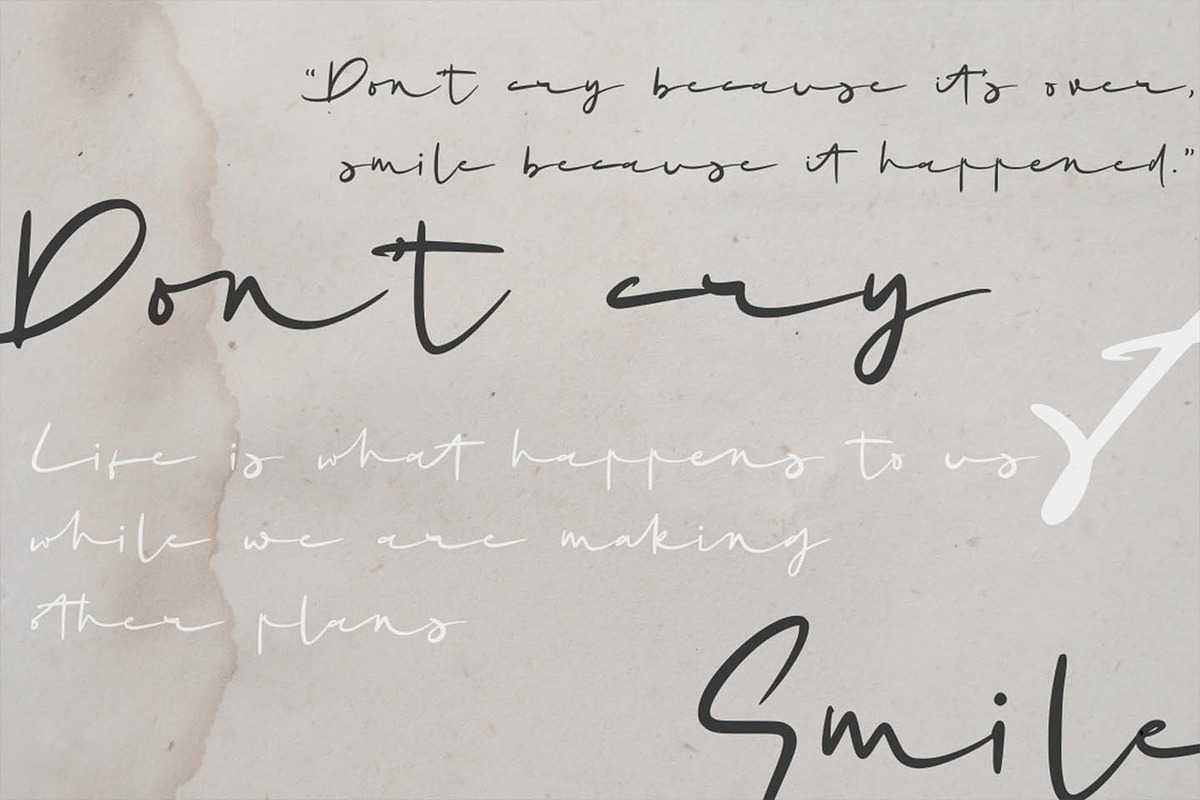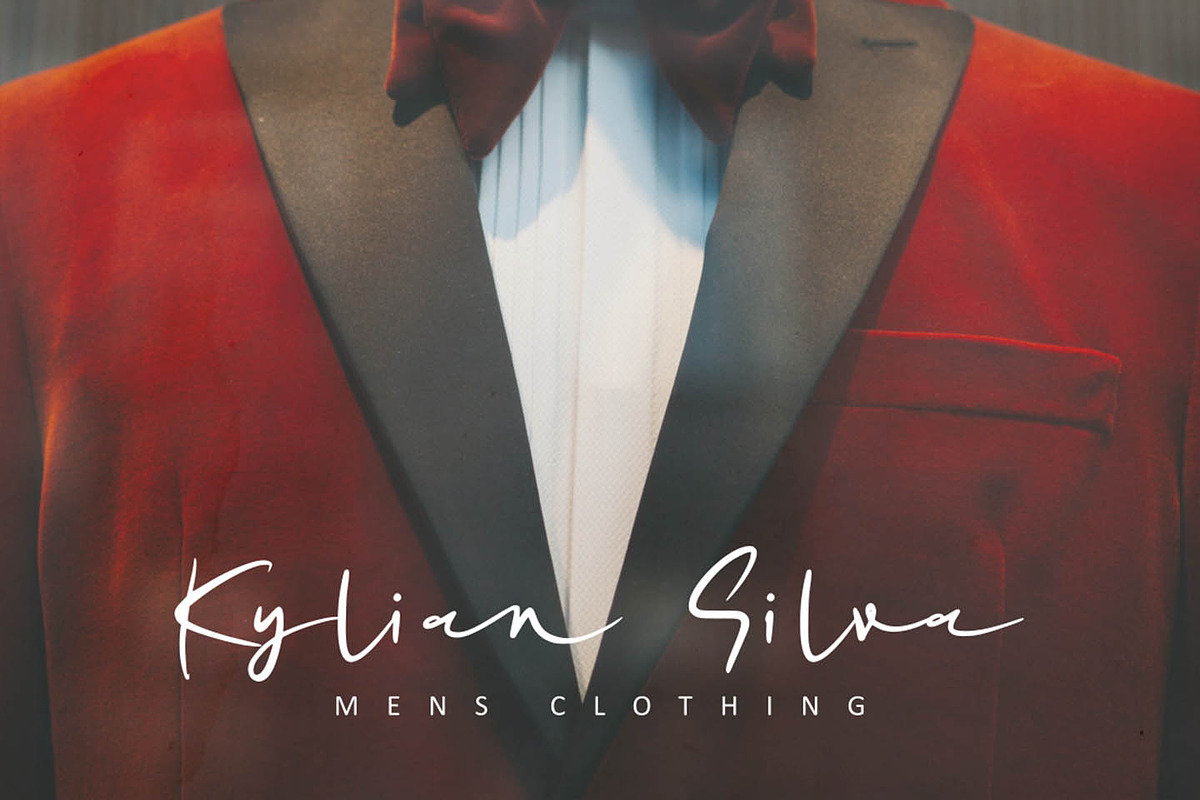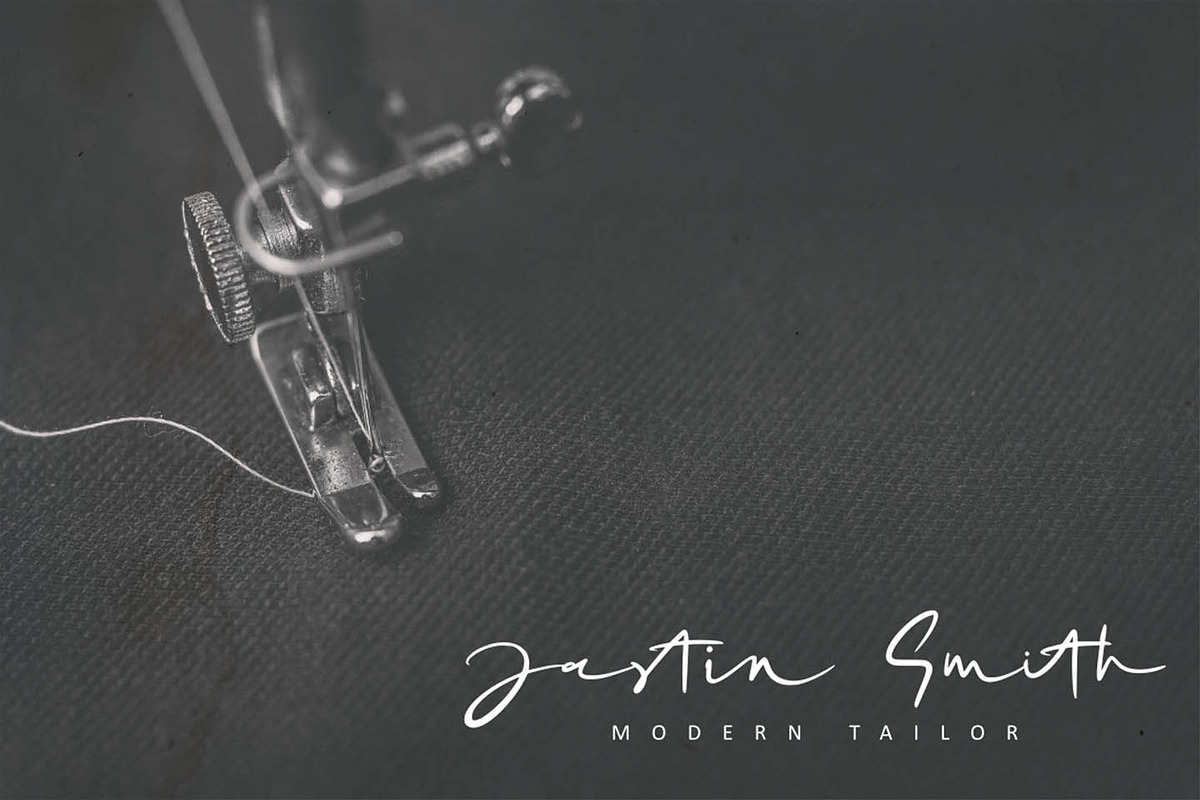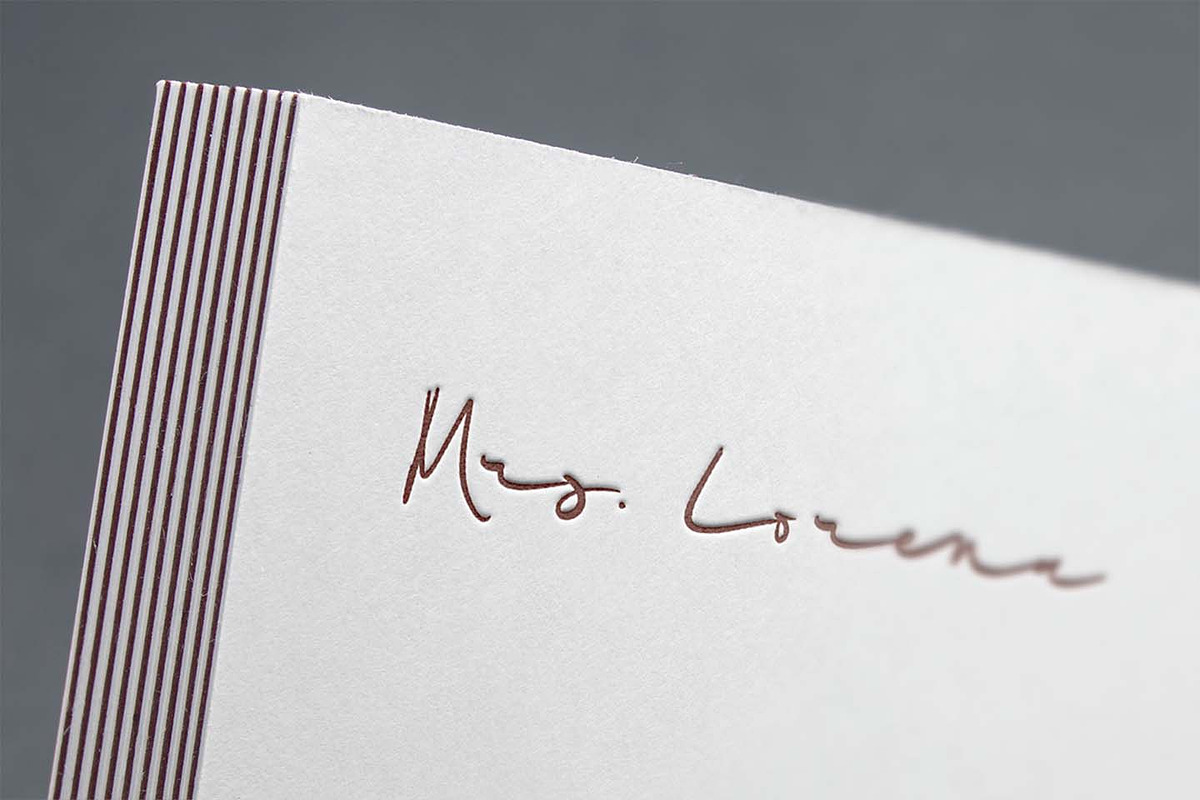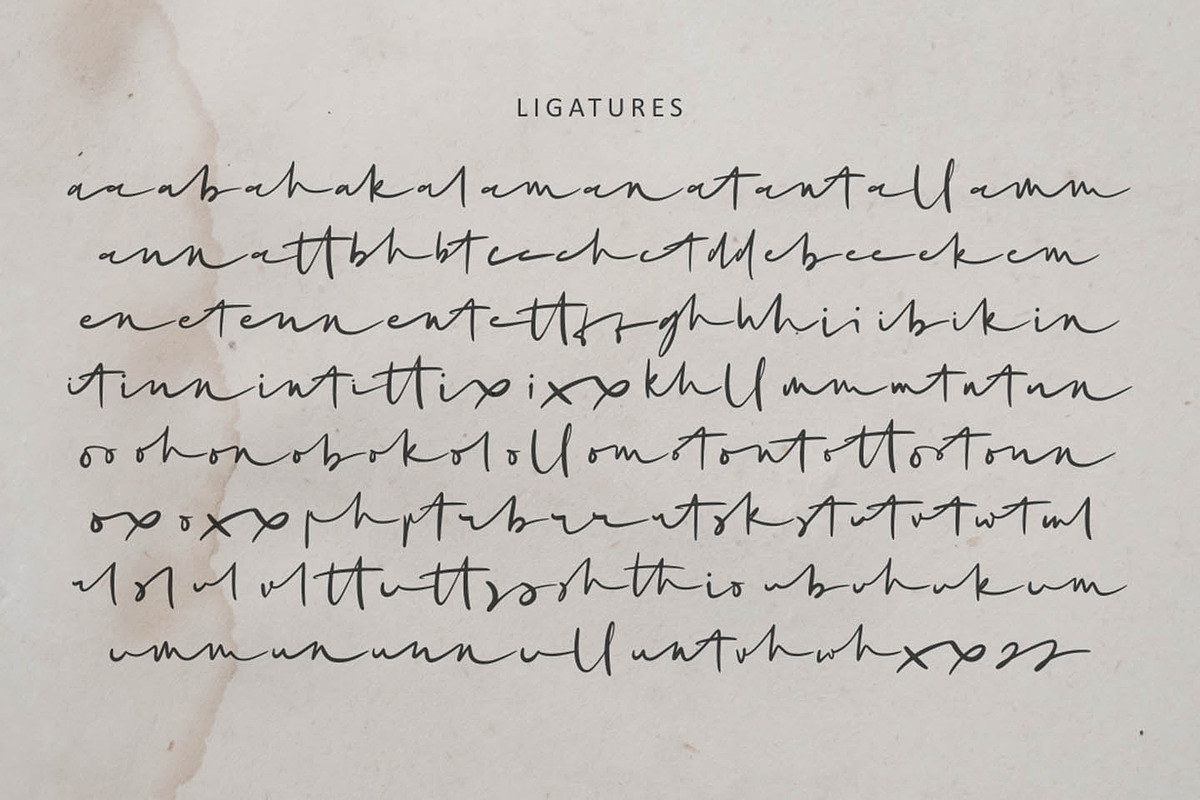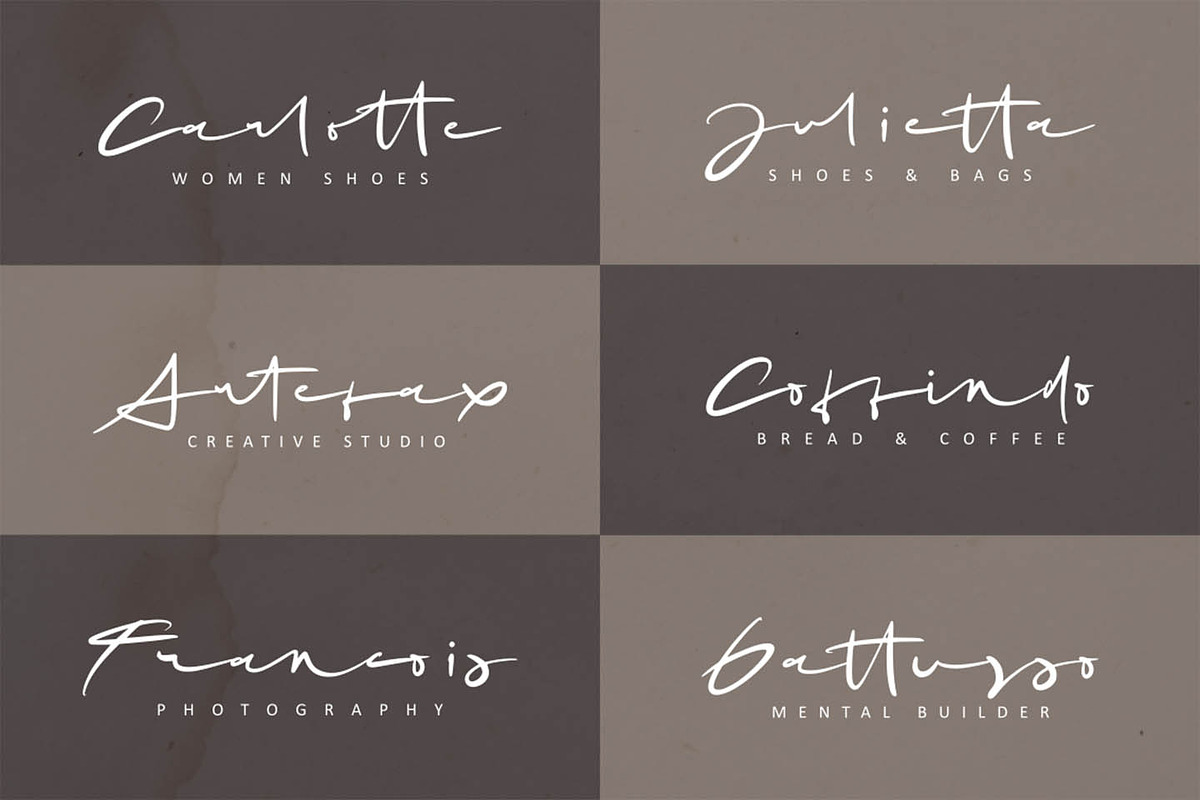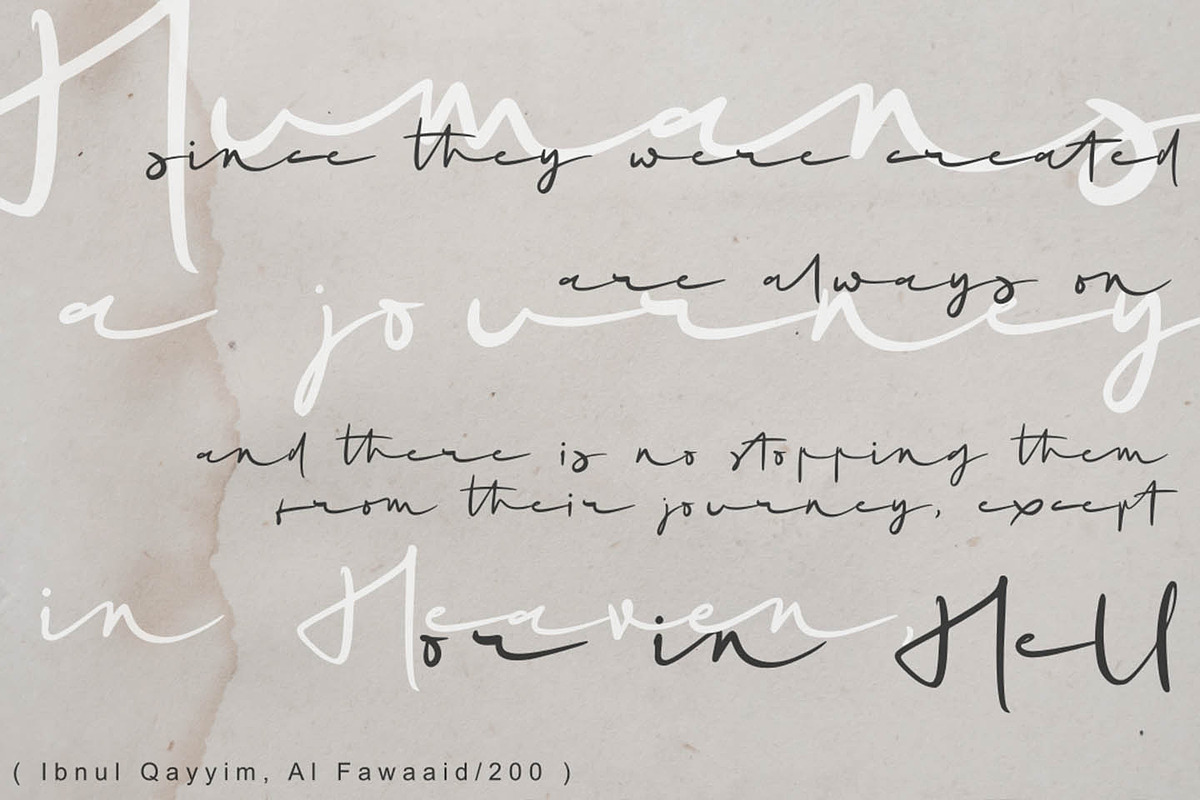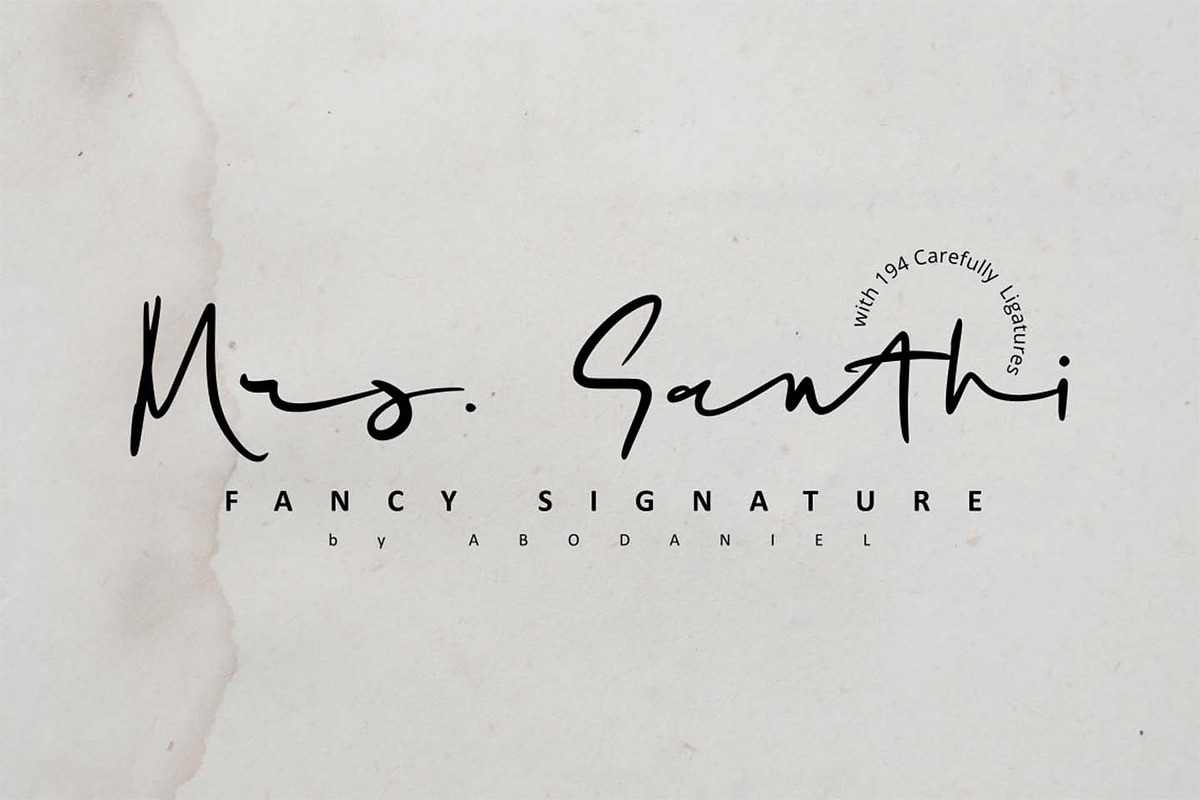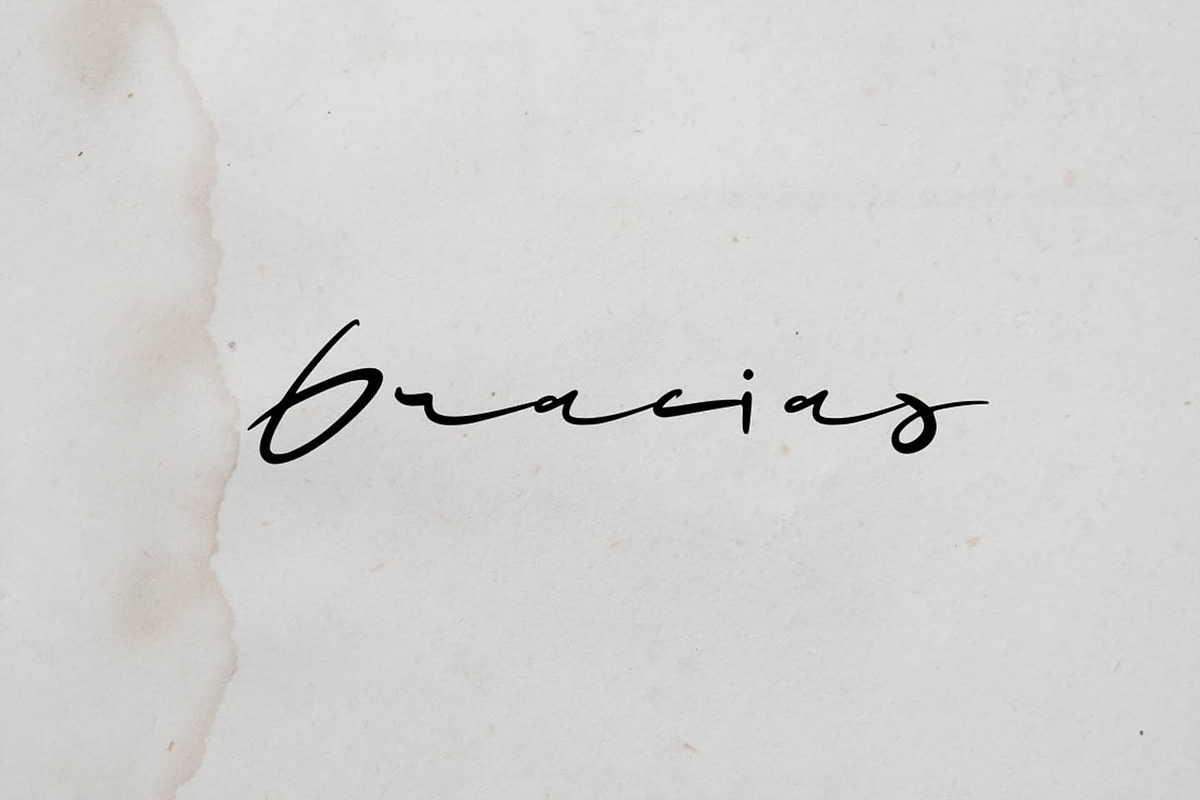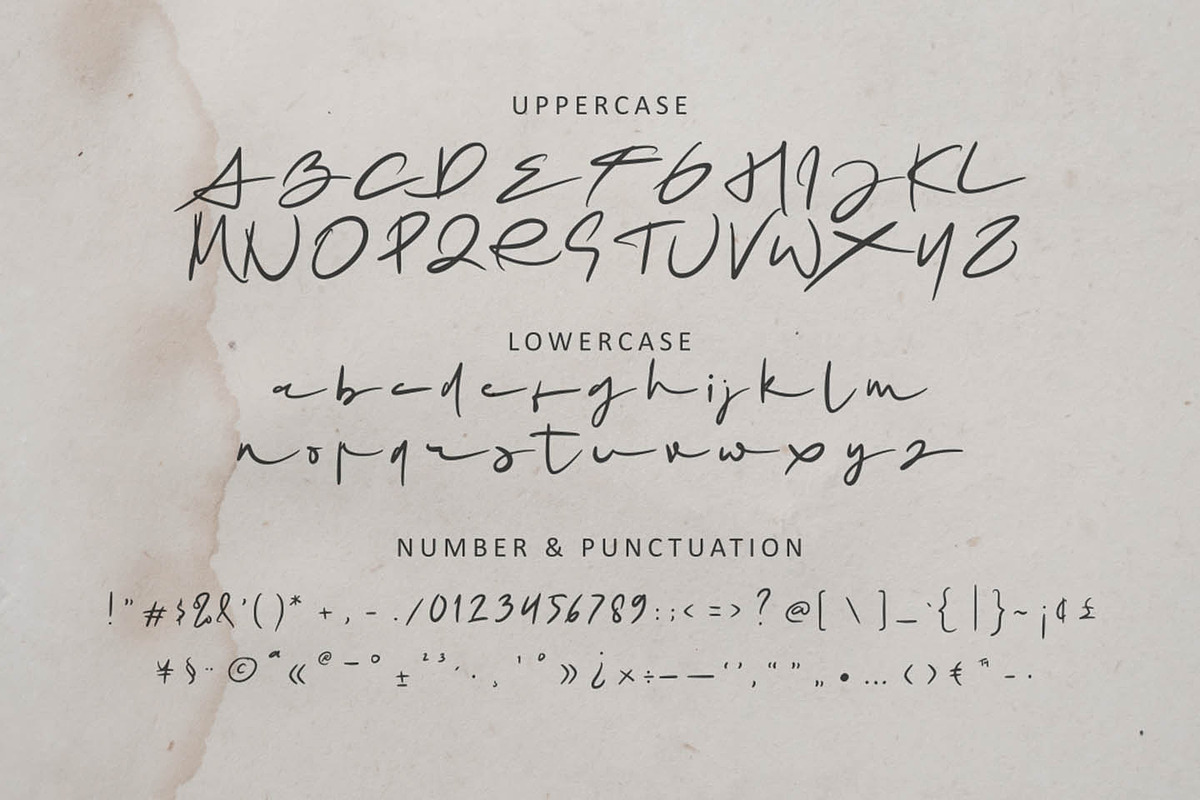
Mrs Santhi
Proudly Present
Mrs. Santhi -Fancy Signature Font-
This font is very unique. I designed it for you who want something different from the others.
It is perfect for branding, photography, invitations, quotes, watermarks, advertisements, product designs, labels, and much more!
I was created 194 ligatures to keep this font looking naturally,
aa ab ah ak al am an at ant all amm ann att bh bt cc ch ct dd eb ee ek em en et enn ent ett ff gh hh ii ib ik in it inn int itt ix ixx kh ll mm mt nt nn oo oh on ob ok ol oll om ot ont ott oot onn ox oxx ph pt .............and more as you see in presentation pictures.
punctuations and multilingual support.